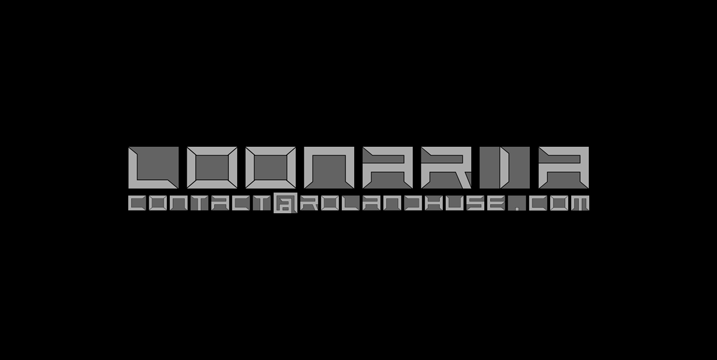
Preview and download Loonaria Font. Created by Runes & Fonts in Techno Various styles with Free for personal use license.
OONARIA is another version of SOLARIA, a sci-fi techno font experiment. Free for personal use only. For commercial use please donate or contact me via myhandwritings@gmail.com Also if you have character / language extension requests, any questions or feedback. You MAY NOT sell this font or claim them as your own. You MAY NOT edit or rename this font. You MAY NOT redistribute this font. Thank you & I hope you like this font, Roland http://www.rolandhuse.com https://www.facebook.com/pages/Runes-And-Fonts/123221817784772 |